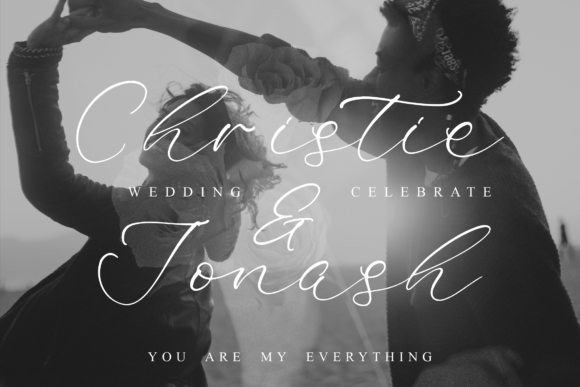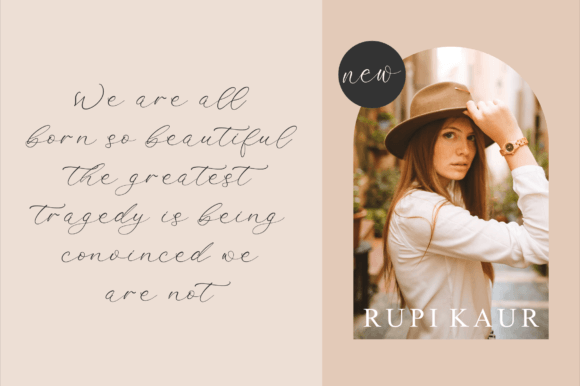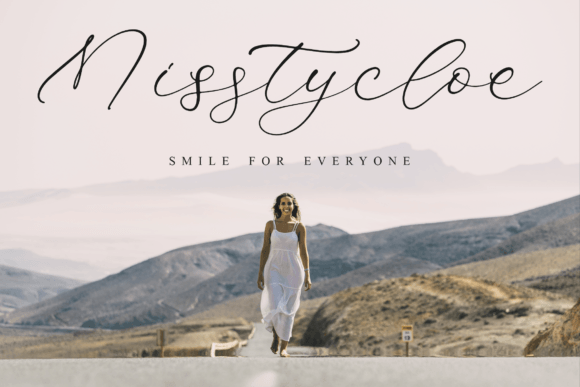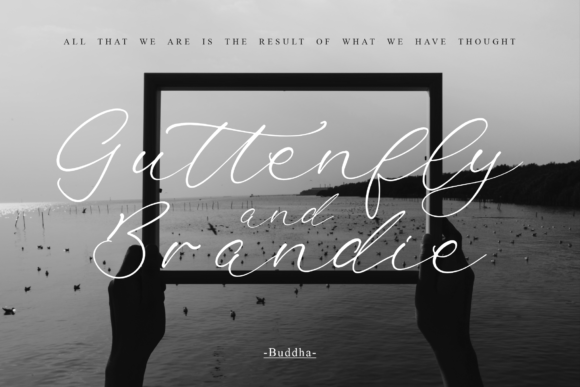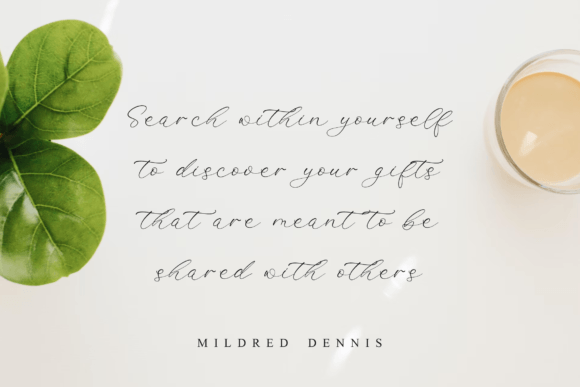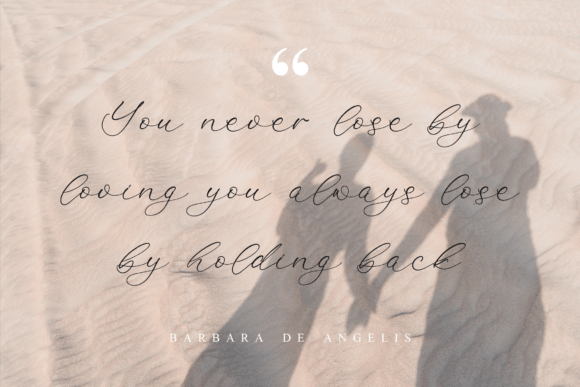
Introduction to Kisstyone Gaselin Font
Enter the Kisstyone Gaselin Font, a delicate, elegant, and flowing handwritten font that’s sure to capture your heart. With its beautiful and well-balanced characters, this font is a design resource that’s hard to resist. Whether you’re working on a high-quality brochure, a logo, or a website with a transparent background, Kisstyone Gaselin Font is the perfect choice to elevate your design.
Key Features of Kisstyone Gaselin Font
- High-quality design resource for creative projects, offering a unique and stylish aesthetic.
- Comes with a transparent background, allowing for easy integration into various design elements.
- Features a unique, handwritten style with intricate details and flourishes, making it perfect for adding a personal touch to designs.
- Has a large character set, including uppercase and lowercase letters, numbers, and punctuation marks.
- Designed to be highly legible, even at small font sizes, making it ideal for use in various design applications.
Honest Review: Kisstyone Gaselin Font
I recently stumbled upon the Kisstyone Gaselin Font, and I must say, it’s been a game-changer for my creative project. As a designer, I’m always on the lookout for high-quality design resources that can elevate my work. And let me tell you, this font has delivered.
- ✨ Unique and elegant design that adds a touch of sophistication to any text
- ✨ Highly legible, even at small font sizes
- ✨ Transparent background, allowing for seamless integration into any design
- ⚠️ Limited font size options, which may not be suitable for large-scale designs
- ⚠️ Not ideal for use in situations where bold font is required
Overall, I’m thoroughly impressed with the Kisstyone Gaselin Font. Its unique design and high quality make it an excellent addition to any designer’s toolkit. If you’re looking for a free design resource that can elevate your creative project, I highly recommend giving this font a try.
Kisstyone Gaselin Font is suitable for a wide range of creative projects, including logos, branding materials, and digital graphics. Its high-quality design makes it an excellent choice for professional designers and non-designers alike. With its transparent background feature, it’s perfect for creating designs that require a subtle background effect.